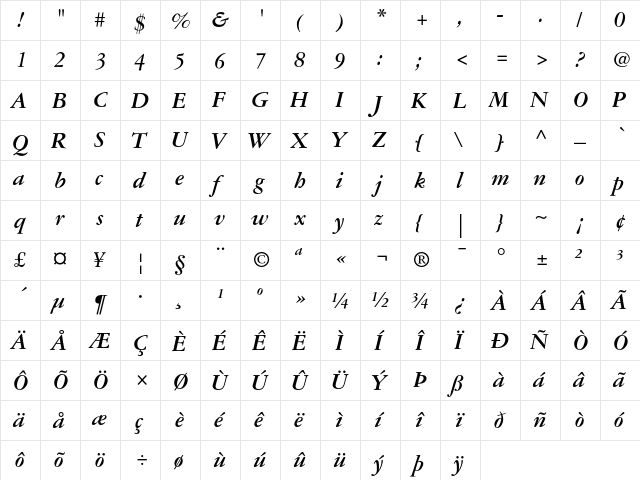
Garamond Three Bold Italic Font Preview
Design Context for Garamond Three Typeface
Garamond Three takes a measured approach to typography — its balanced proportions and neutral character make it a reliable workhorse for both digital and print work. The slanted form adds forward momentum and visual energy. The heavy weight commands attention and anchors typographic hierarchies.
Pro Tip: Try Garamond Three for annotation and caption copy alongside an upright companion — the contrast in angle creates a dynamic but ordered typographic system.